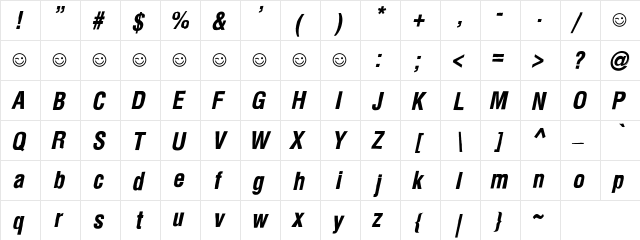
Newside FP Italic
Design Context for Newside FP Typeface
Newside FP is a composed and adaptable typeface that performs quietly and consistently across a wide range of design contexts. The slanted form adds forward momentum and visual energy.
Pro Tip: Try Newside FP for annotation and caption copy alongside an upright companion — the contrast in angle creates a dynamic but ordered typographic system.